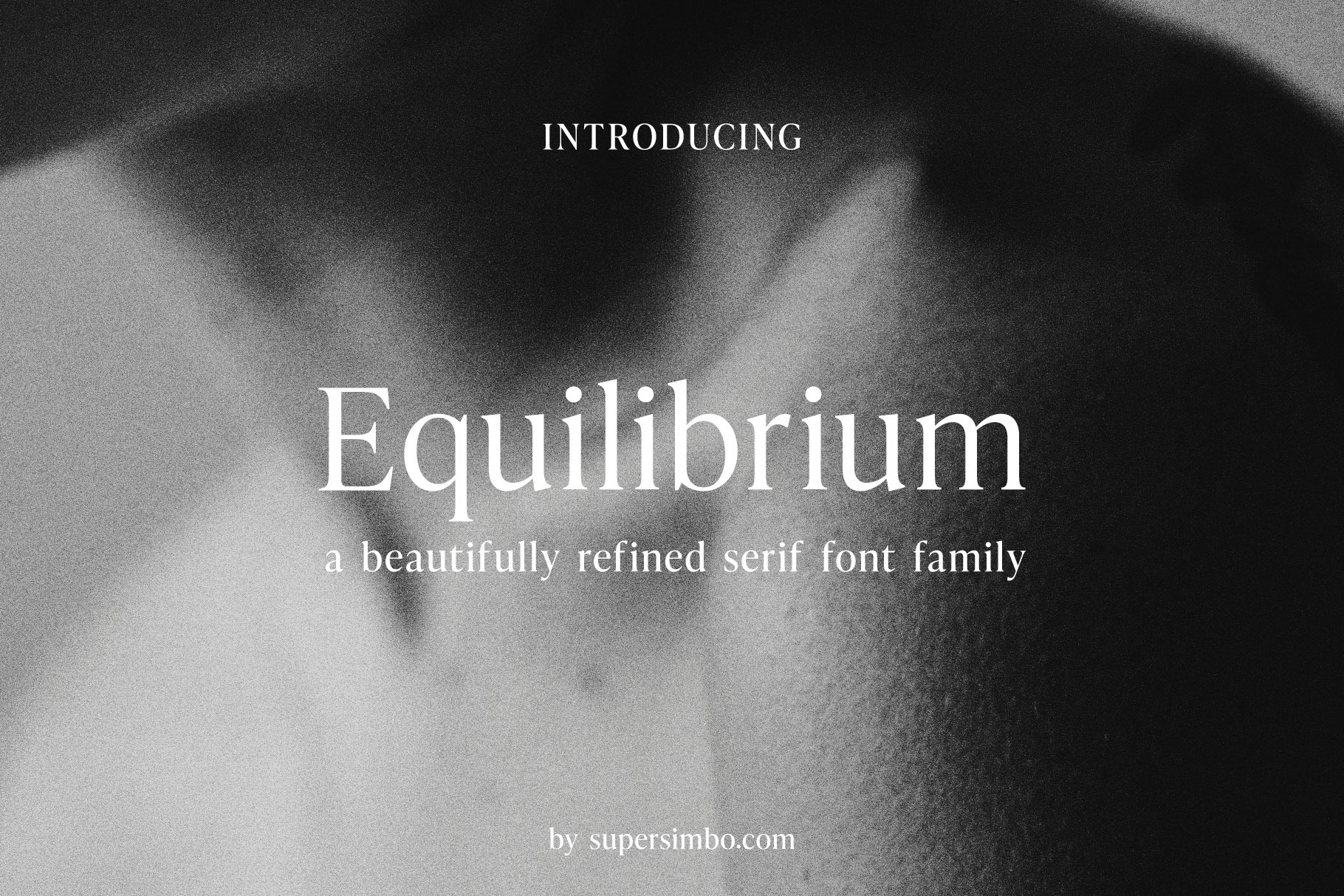
Equilibrium | Refined Serif font
Equilibrium is a refined serif font designed to elevate modern design projects with its blend of timeless elegance and contemporary sophistication. Its sleek, balanced proportions and graceful curves make it the perfect choice for logos, product packaging, and graphic designs that demand both style and impact. Equilibrium’s versatile charm seamlessly adapts to a variety of applications, from luxury branding to editorial layouts, ensuring your work stands out with a polished, professional edge. Whether you're crafting a minimalist aesthetic or adding a touch of classic charm, Equilibrium delivers the perfect balance of beauty and functionality, leaving a lasting impression on any audience.